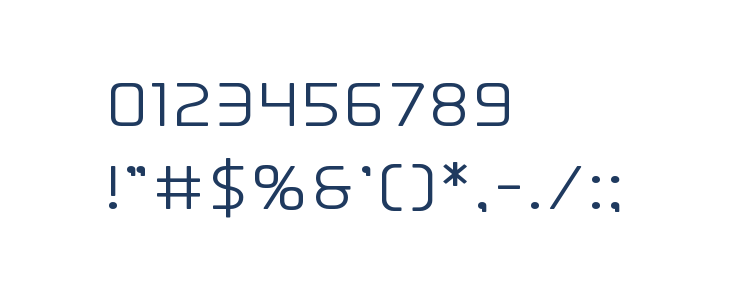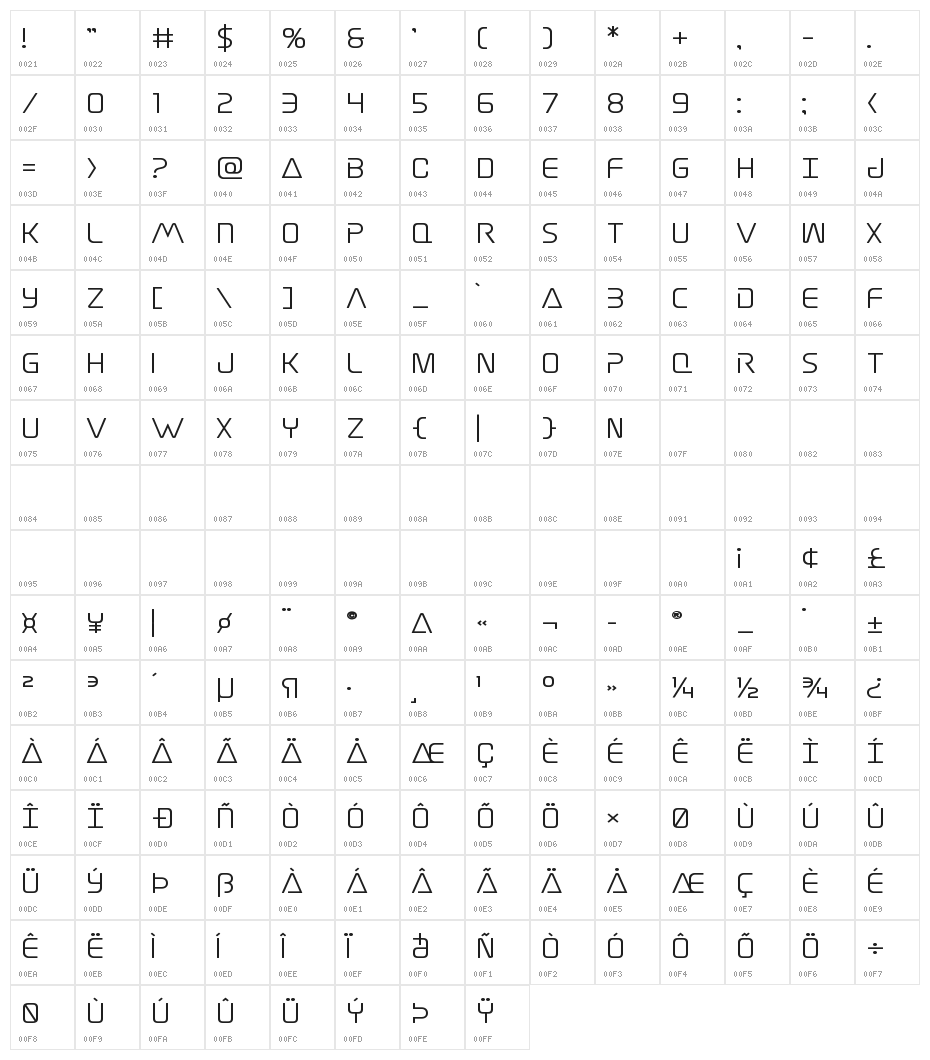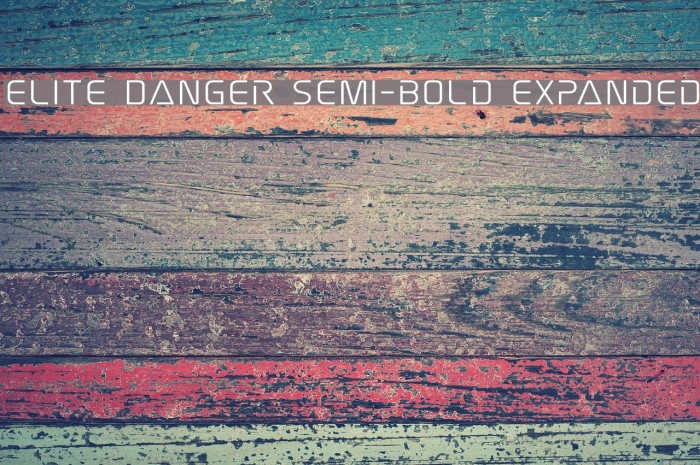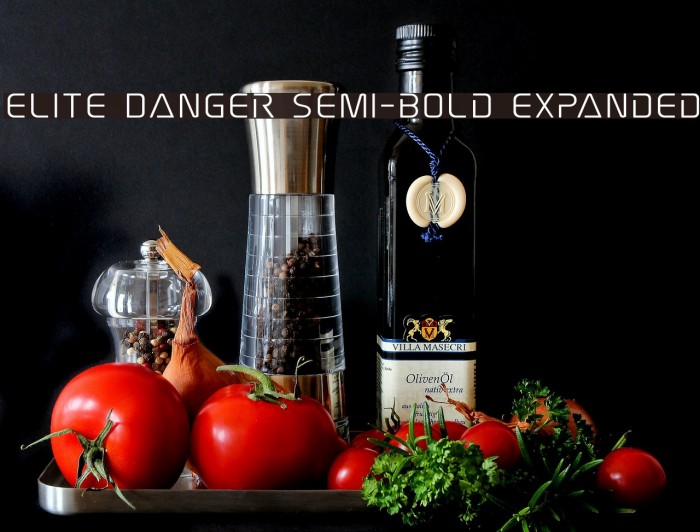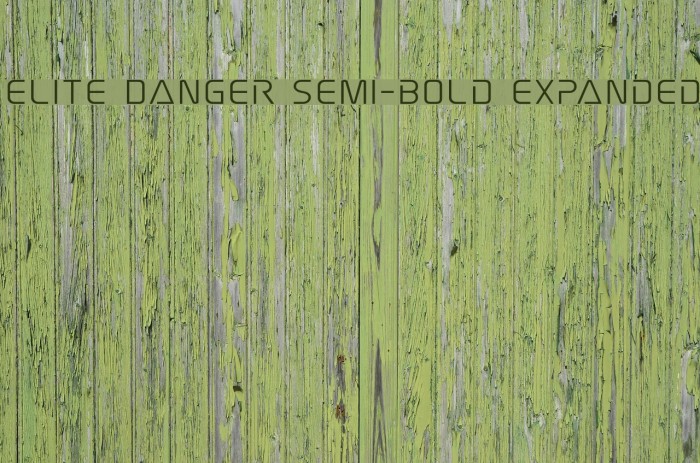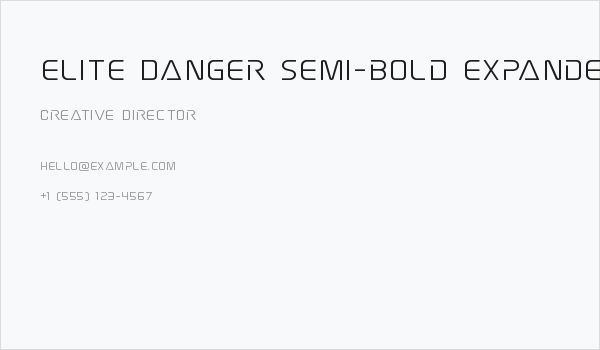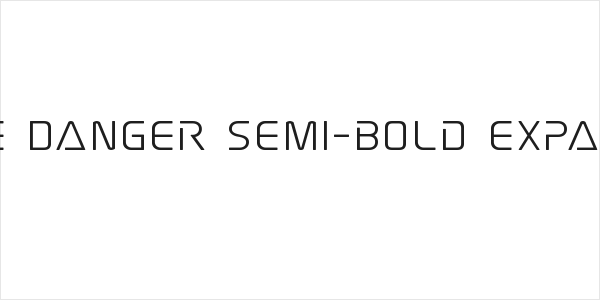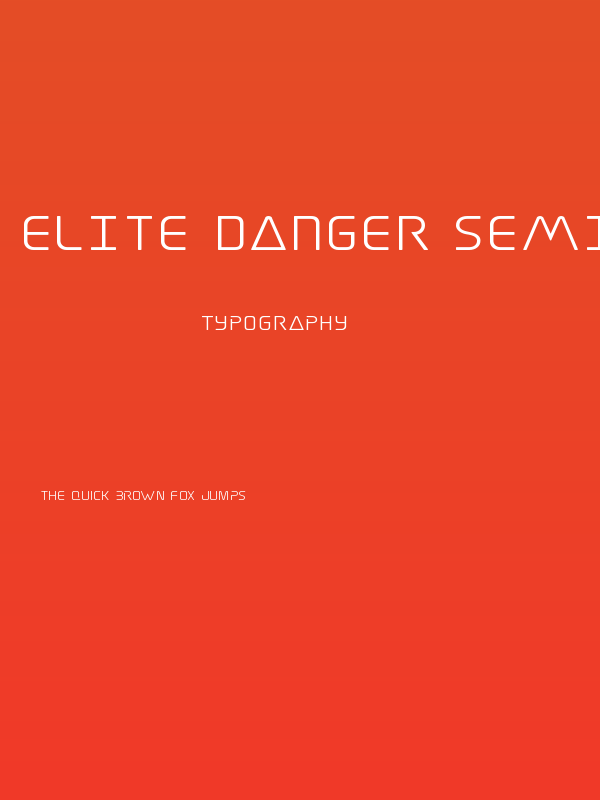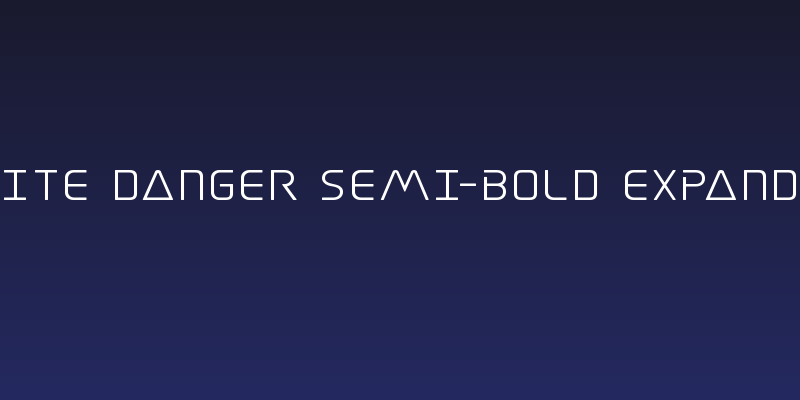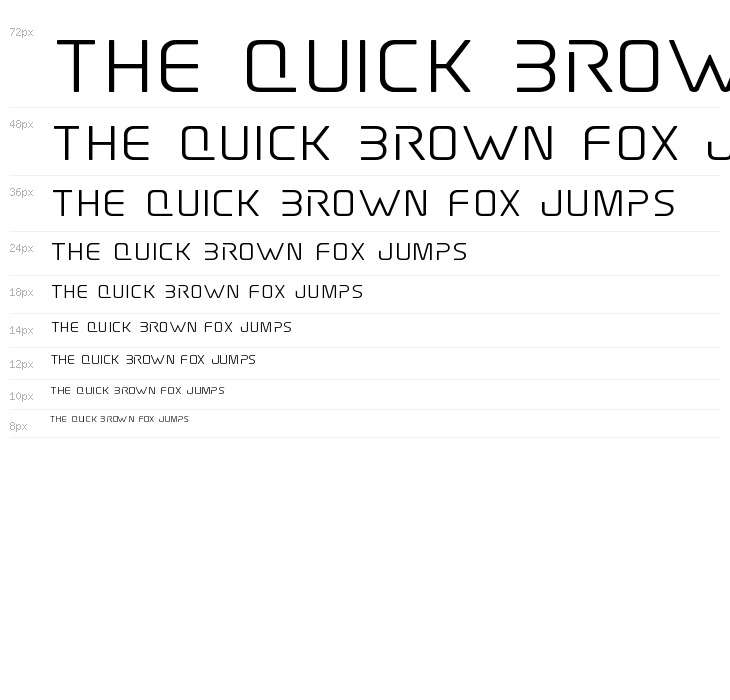
Elite Danger Semi-Bold Expanded Font
Elite Danger Semi-Bold Expanded Description
This font features a modern and futuristic design with geometric elements. The characters are structured with clean lines and a uniform stroke width, giving it a sleek and contemporary appearance. The uppercase and lowercase letters maintain a consistent style, with rounded edges and a slightly expanded width. The numerals and special characters follow the same design principles, ensuring a cohesive look across all glyphs. This font is well-suited for projects that require a modern and tech-savvy aesthetic.
| Use Case | Headlines, Logos, Digital Interfaces |
| Proposed Projects | Ideal for technology branding, sci-fi themed designs, digital interfaces, and modern advertising. |